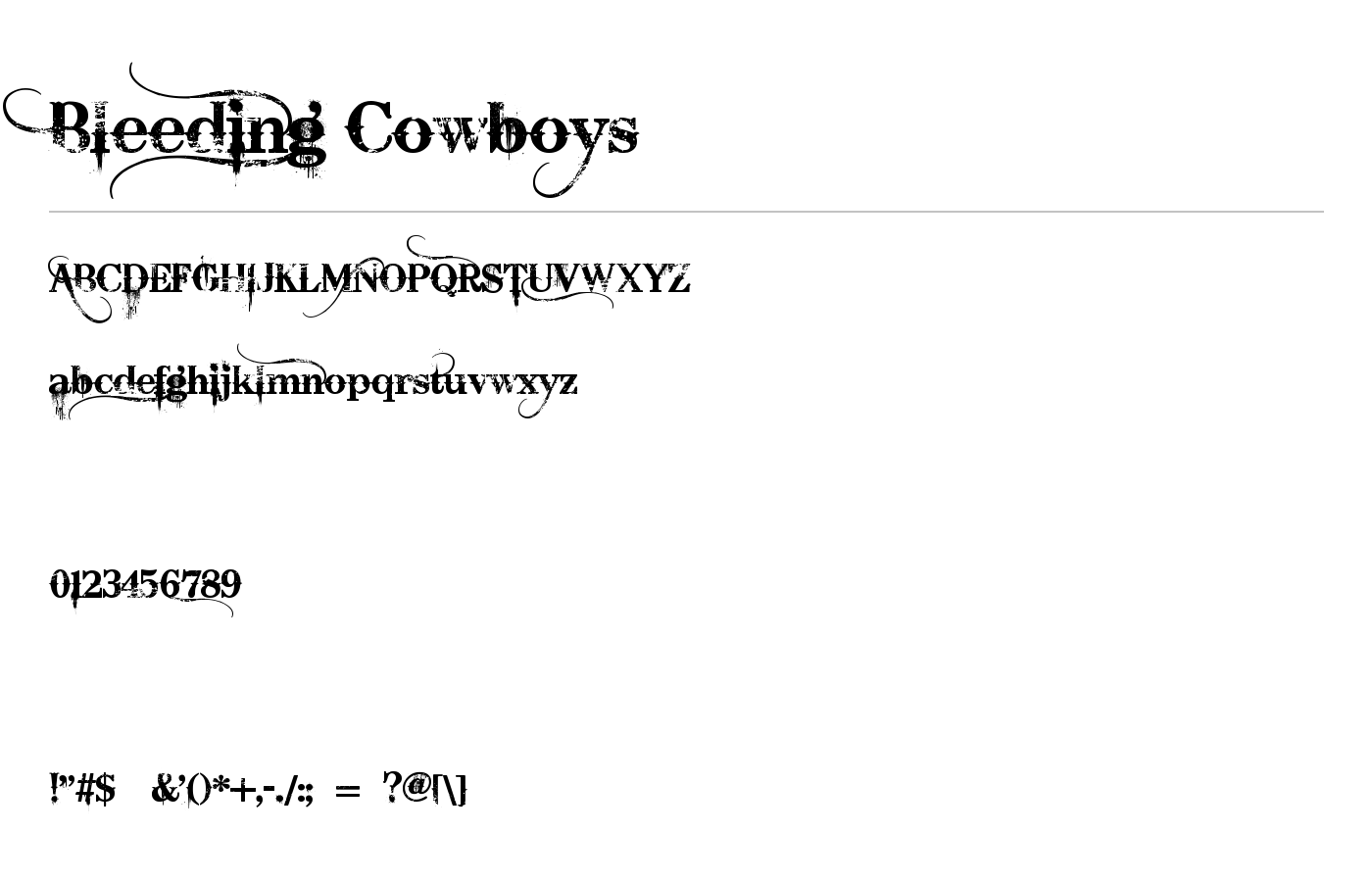
Bleeding Cowboys is a distressed serif font with a grungy, weathered look that combines decorative swashes and rough textures, giving it a wild west, vintage rebellious vibe. Its ornate flourishes and uneven edges make it ideal for designs needing a bold, edgy, and rustic feel, such as posters, album covers, or themed branding that wants to evoke a rugged yet artistic personality. This font stands out in headlines and logos where a dramatic, attention-grabbing style is desired.
Bleeding Cowboys Font
About Bleeding Cowboys Font